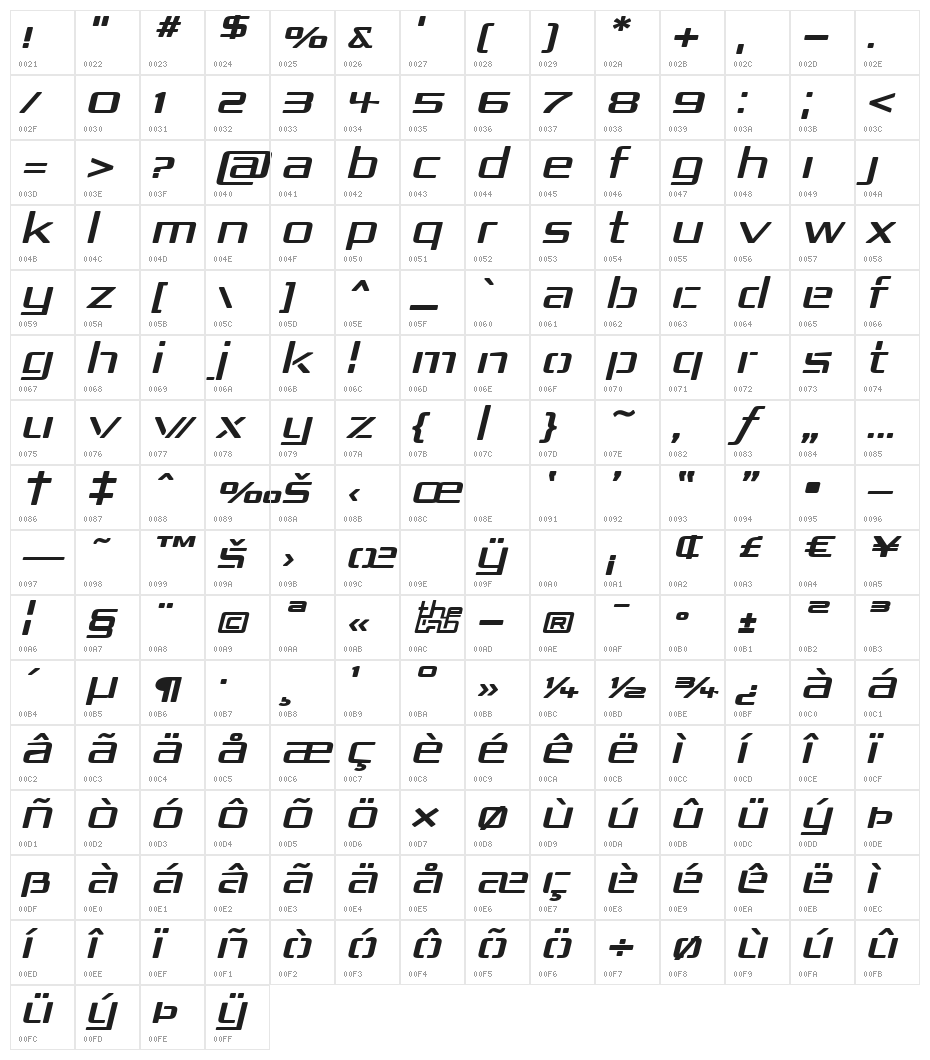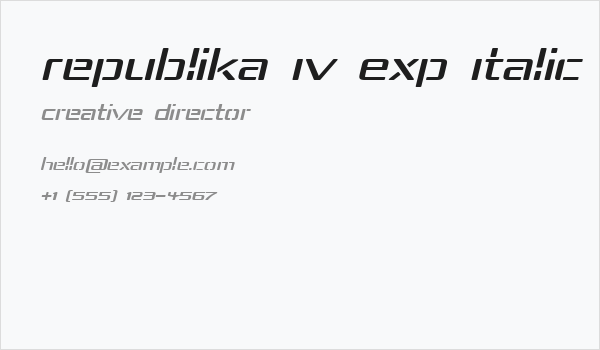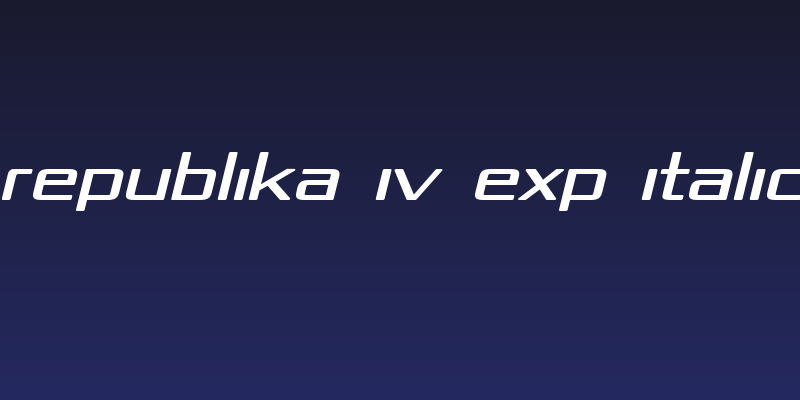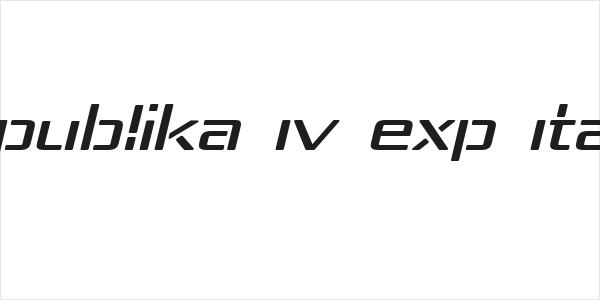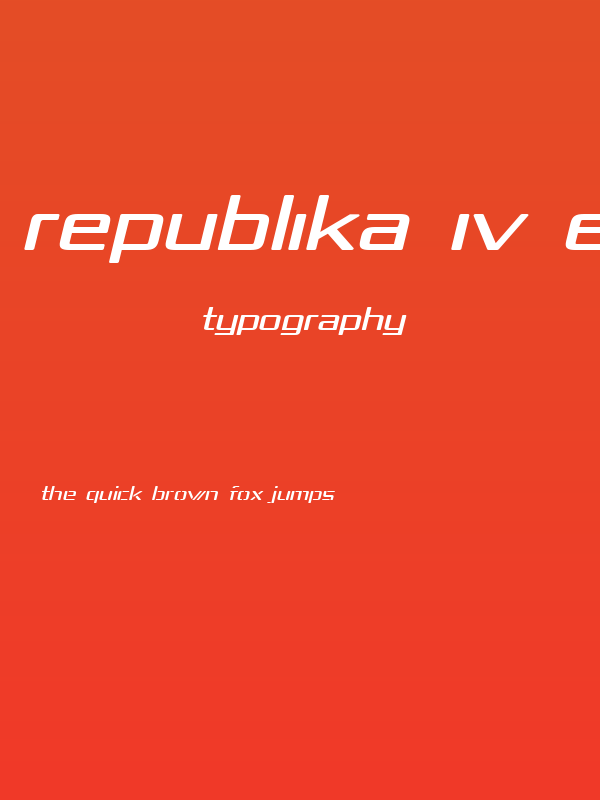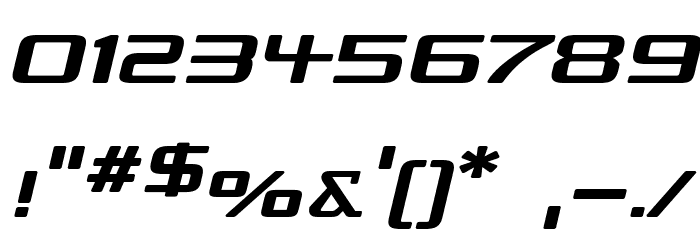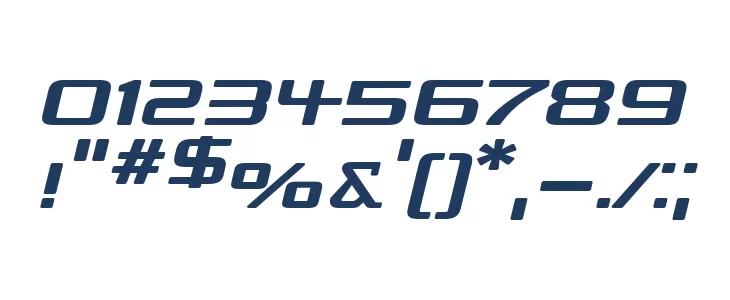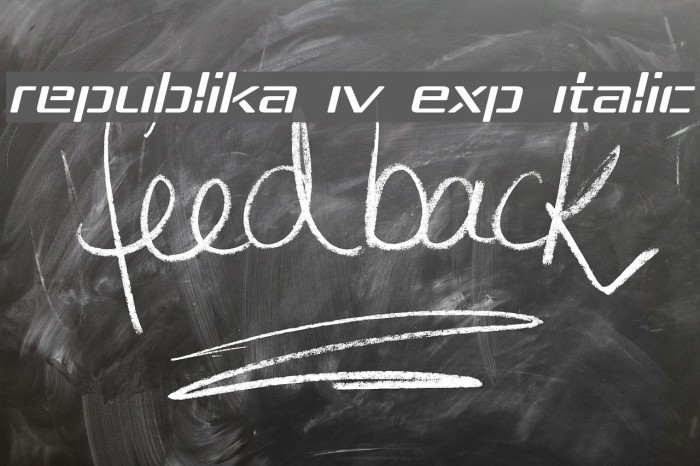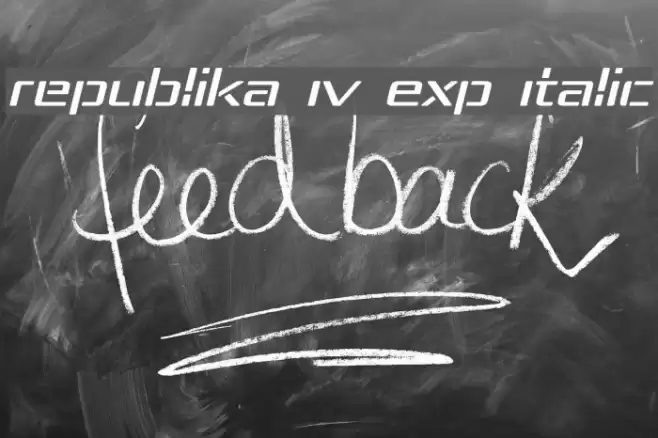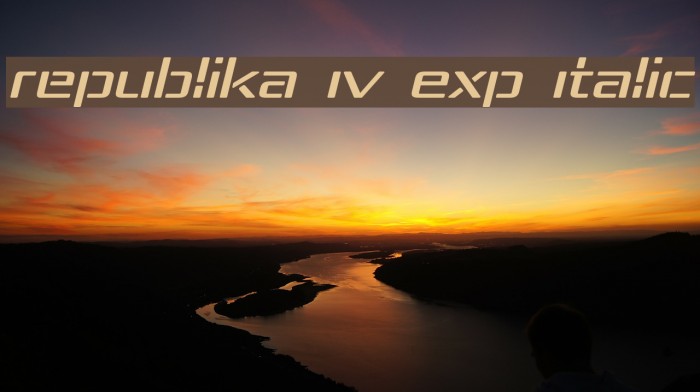
Republika IV Exp Italic Font
Republika IV Exp Italic Description
This font features a modern and sleek design with an italicized and expanded style. The characters are slightly slanted, giving a dynamic and forward-moving appearance. The strokes are consistent in weight, providing a uniform look across all characters. The font includes both uppercase and lowercase letters, numerals, and a variety of special characters. Its geometric shapes and clean lines make it suitable for contemporary design projects. The overall aesthetic is futuristic and technical, ideal for conveying a sense of innovation and progress.
| Use Case | Headlines, Logos, Branding |
| Proposed Projects | Ideal for technology branding, modern advertising, futuristic posters, and innovative product packaging. |